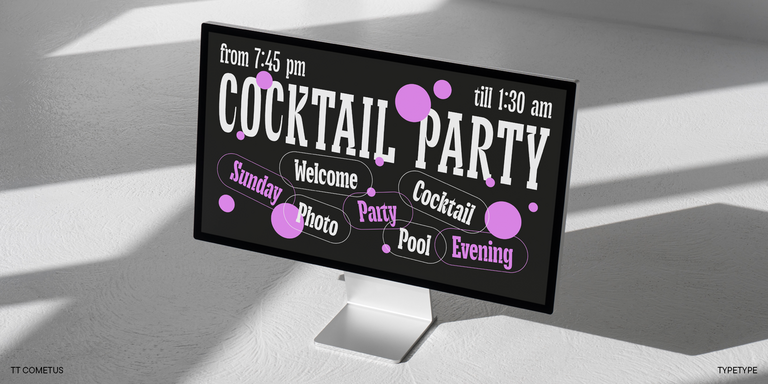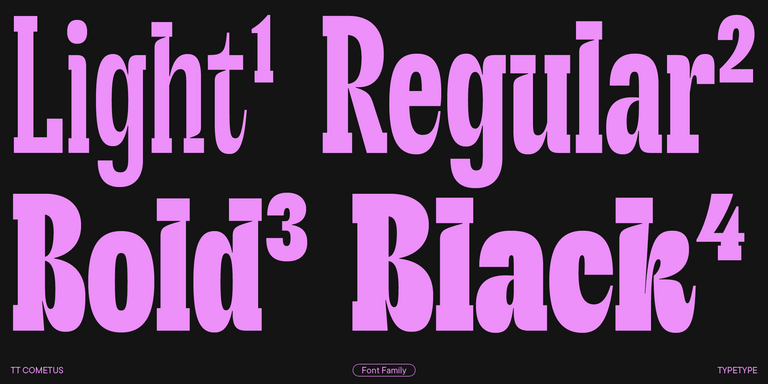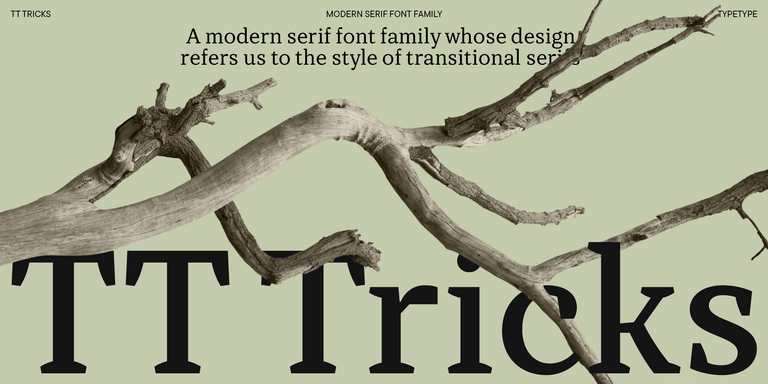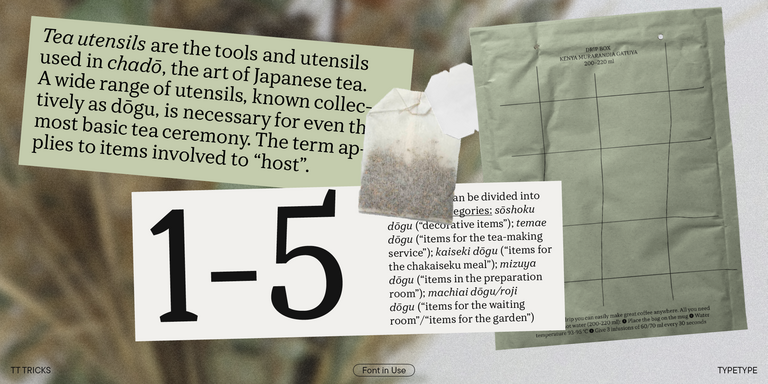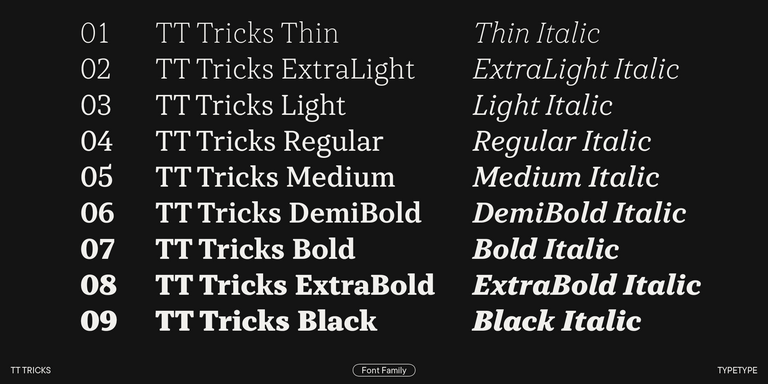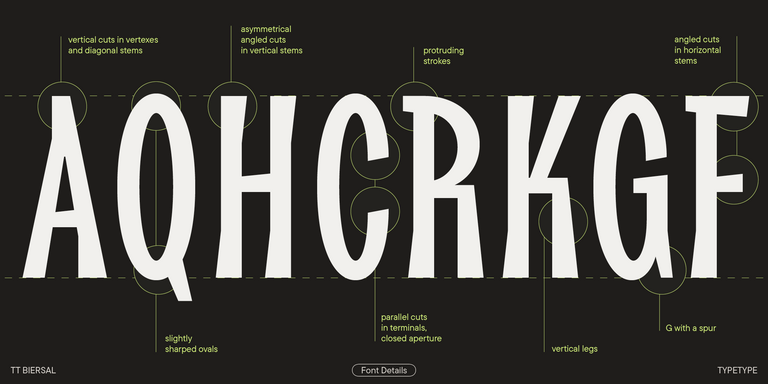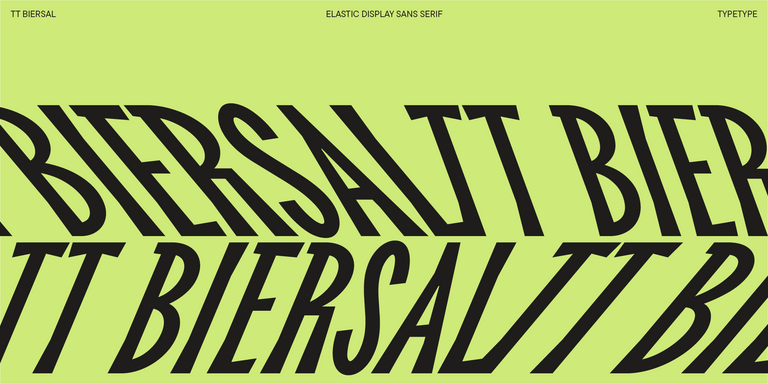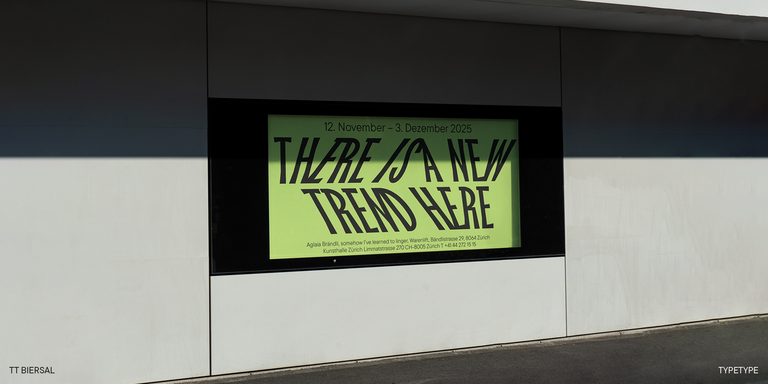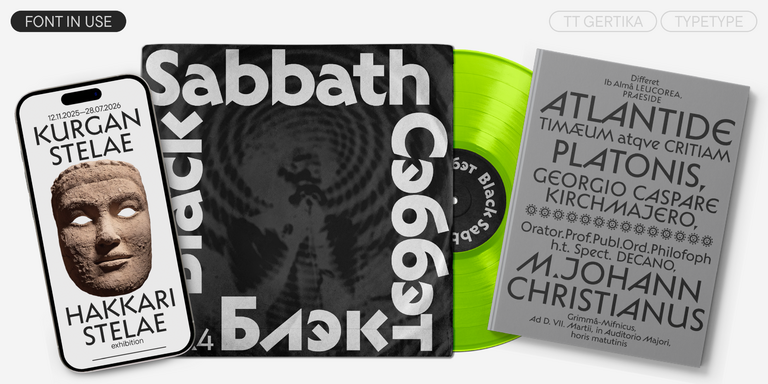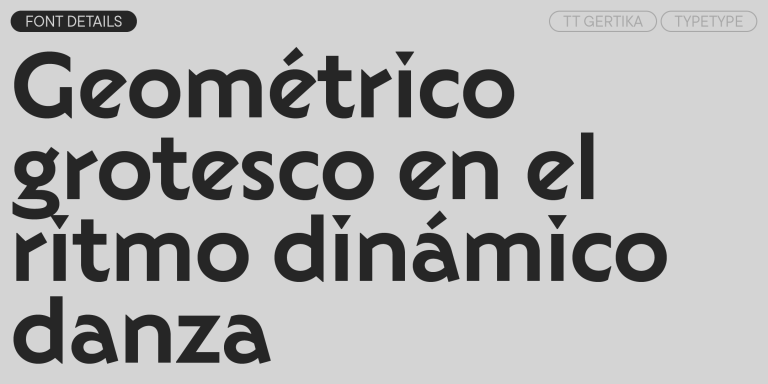
We continue to expand the line of the studio's main bestseller TT Norms® Pro!
TT Severs is a geometric sans serif with emphasized elements of internal brackets. The main visual feature of TT Severs is the unusual form of internal ovals.
TT Jenevers is a modern serif with a Dutch flavor. The font family features the characteristic details peculiar to Dutch serifs—these are the asymmetrical shape of serifs and an irregular slant of ovals.
TT Regins is a Scottish modern serif. Striking contrast and sharp triangular serifs give this font a stern and commanding character, while refined forms, enlarged lowercase letters, and slightly condensed, static proportions add grace to its design.
TT FRANTZ IS AN EXPERIMENTAL VARIABLE FONT, DISTINGUISHED BY ITS SLIMNESS AND LIGHTNESS. THE VARIATION IN THE FONT AFFECTS THE CHANGE IN THE HEIGHT OF THE MEAN LINE—BY MOVING THE AXIS ADJUSTMENT SLIDER YOU CAN EASILY RAISE OR LOWER THE MEAN LINE OF THE FONT.
TT Quaris is an exquisite, modern high-contrast sans whose design balances between soft and sharp. The glyph shapes in the font are fluid and tend towards roundness, yet there are also sharp elements.
TT Ricordi Allegria is a sleek and intelligent contemporary Florentine grotesque.
TT Bakers is a fluid serif with a gentle and lively character. This font is like freshly baked goods: it’s warm and soft, especially in its bolder weights.
TT Ricordi Greto is an experimental project, inspired by a floor plaque dating from 1423 found in the Basilica di Santa Croce, Florence.
TT Firs Neue is a contemporary reincarnation of the good old TT Firs sans serif.
TT Fellows is a humanist sans serif with a mechanical touch.
TT Ramillas is a fully reconsidered high contrast transitional serif, which is perfectly adapted to modern realities and requirements.
TT Gertika is a geometric sans serif with a dynamic character and a dancing rhythm. This font’s idea originates from the lettering featured on an American poster from the late 1930s.
TT Biersal is a display sans serif with a free-spirited, playful, and adventurous nature. The concept of this font was sparked by a German poster from the early 1930s.
TT Paplane is a squared-looking display sans serif.
TT Tricks is a modern text serif with a design reflecting the style of Transitional serifs. This font has a calm, elegant, and moderately stern character.
TT Cometus is an expressive typeface that captivates from the first time.